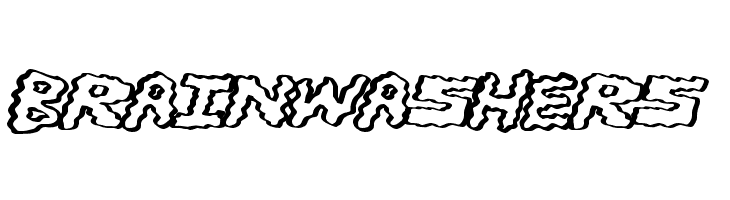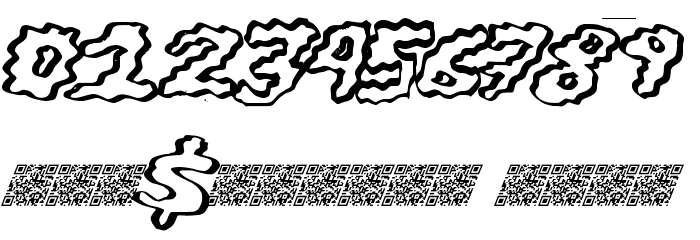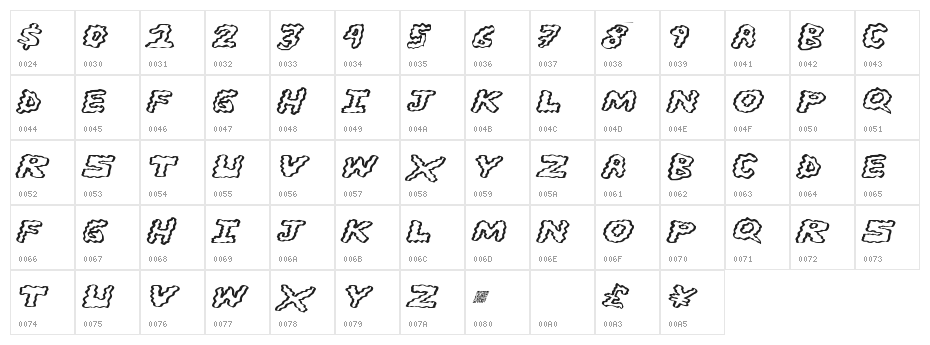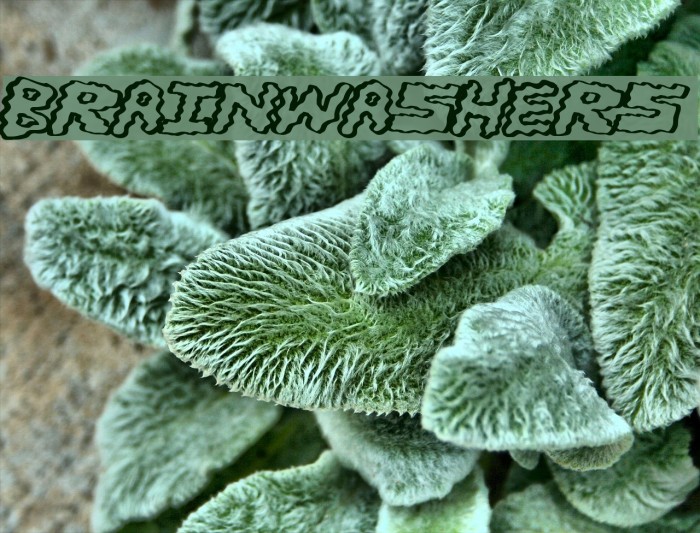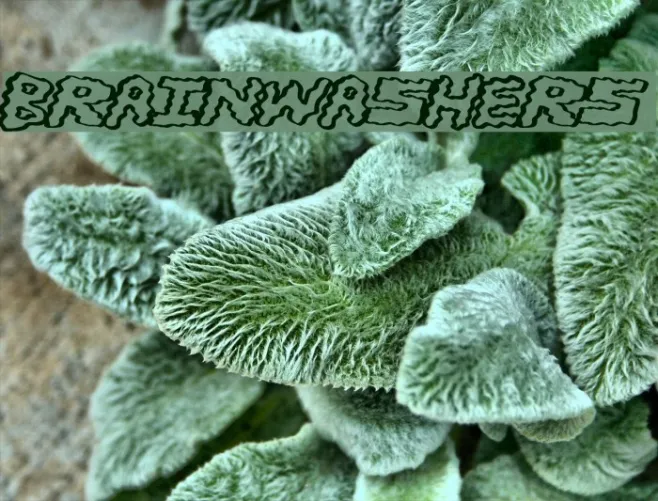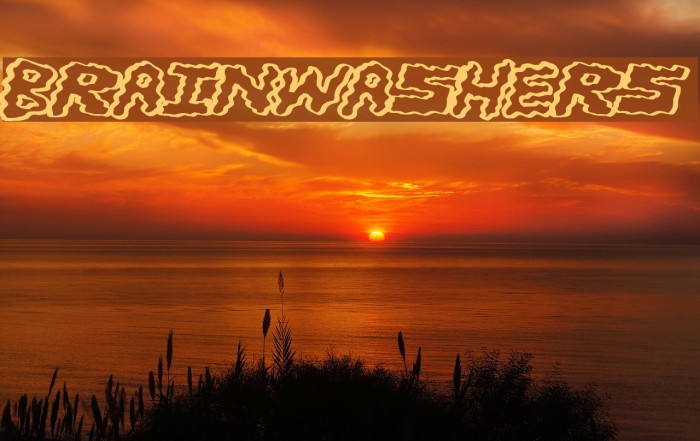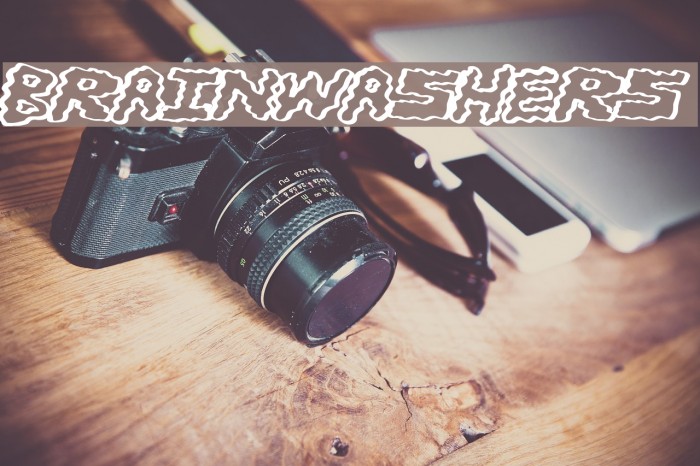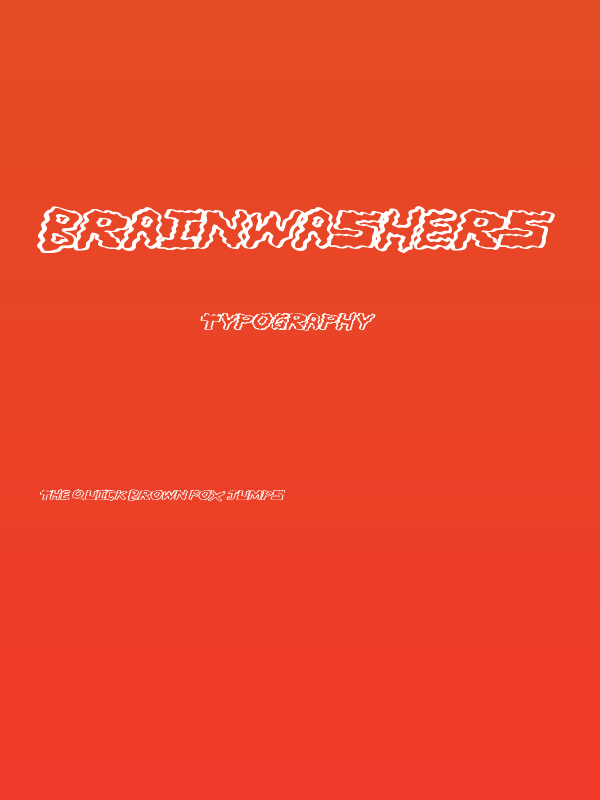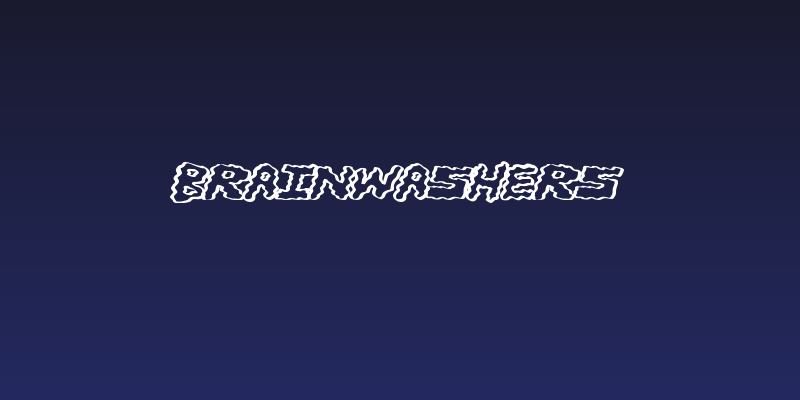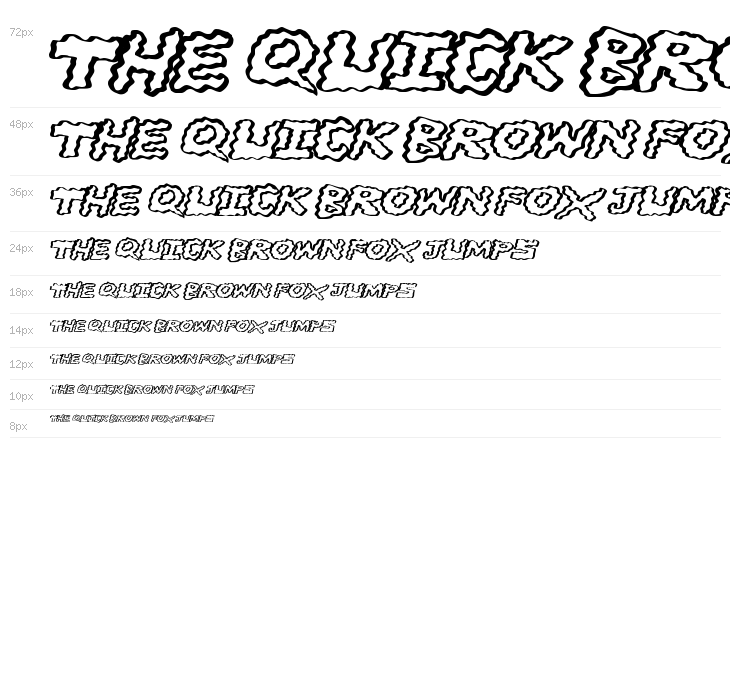
BrainWashers Font
BrainWashers Description
This font features a playful, wavy design that gives the impression of movement and fluidity. The characters are outlined with a bold, irregular contour that resembles a hand-drawn style, adding a whimsical and dynamic feel. The uppercase and lowercase letters maintain a consistent style, with each character exhibiting a unique, undulating form. The numbers and special characters follow the same aesthetic, ensuring a cohesive look across all glyphs. This font's distinctive style makes it stand out, perfect for projects that require a fun and eye-catching typeface.
| Proposed Projects | Ideal for children's books, comic strips, playful branding, and creative posters. |